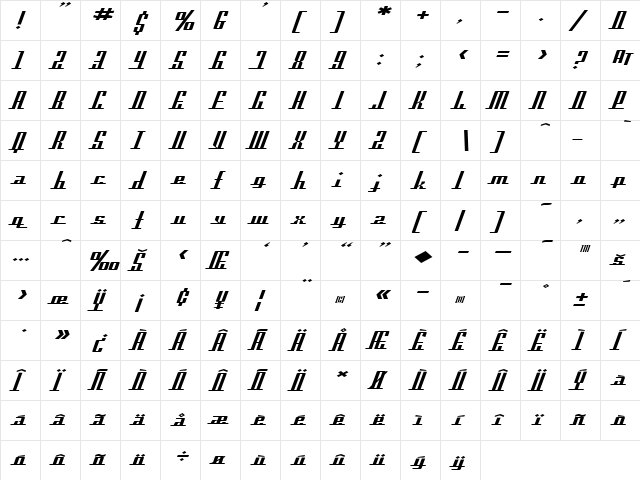
SF Americana Dreams Extended Regular
Design Context for SF Americana Dreams Extended Typeface
SF Americana Dreams Extended is a composed and adaptable typeface that performs quietly and consistently across a wide range of design contexts.
Pro Tip: Use SF Americana Dreams Extended in both headline and body roles to test its range before committing to a single application.